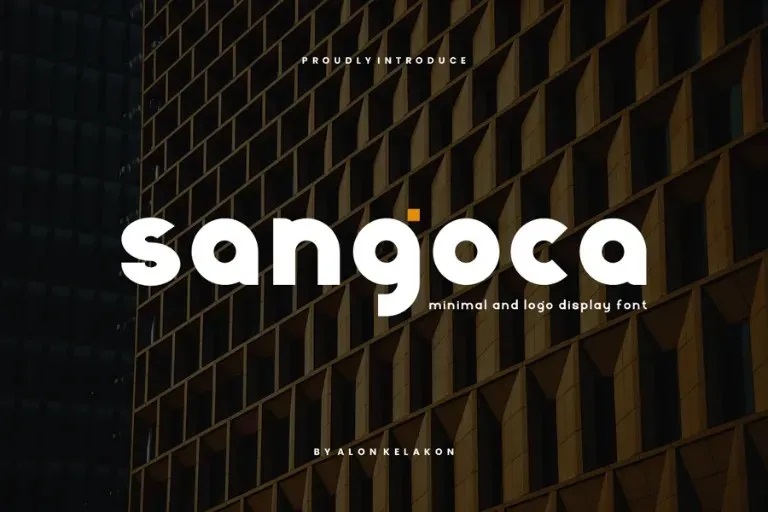
Sangoca Font
Sangoca is a Sans Serif Logo is unique. Available for your designs like; labeling, scenes in your movie, movie title, concerts, album art, logos and more. The free one offers all the alphabets in both cases and a few symbols as well.
Sangoca Sans Serif Font